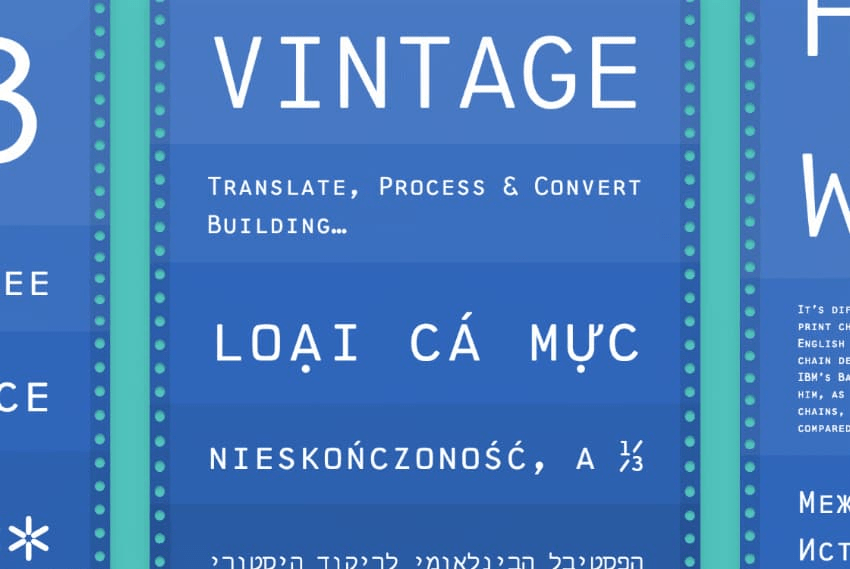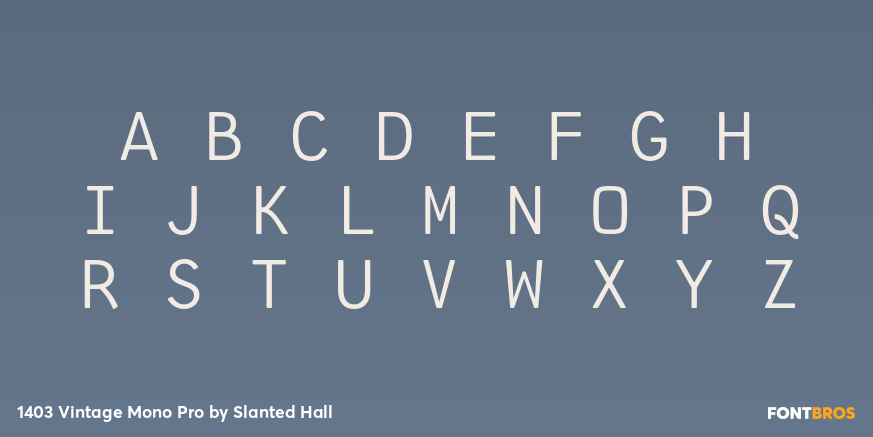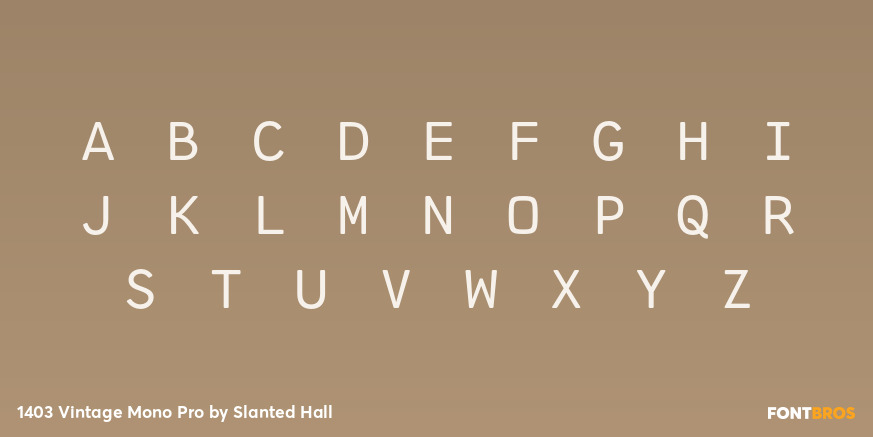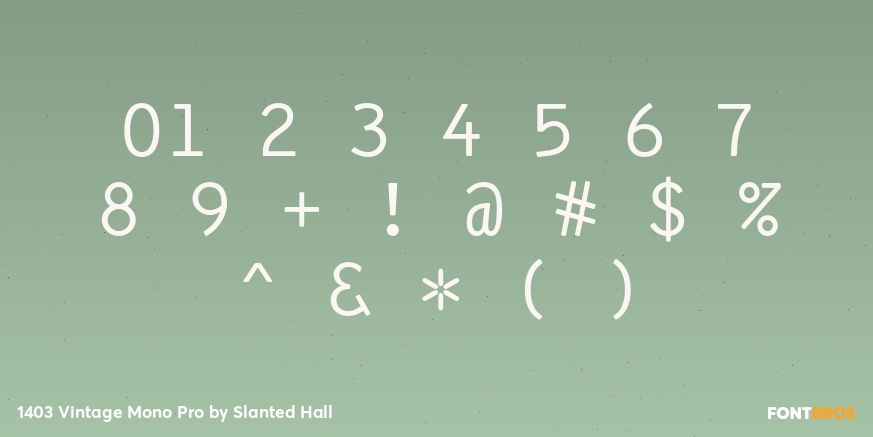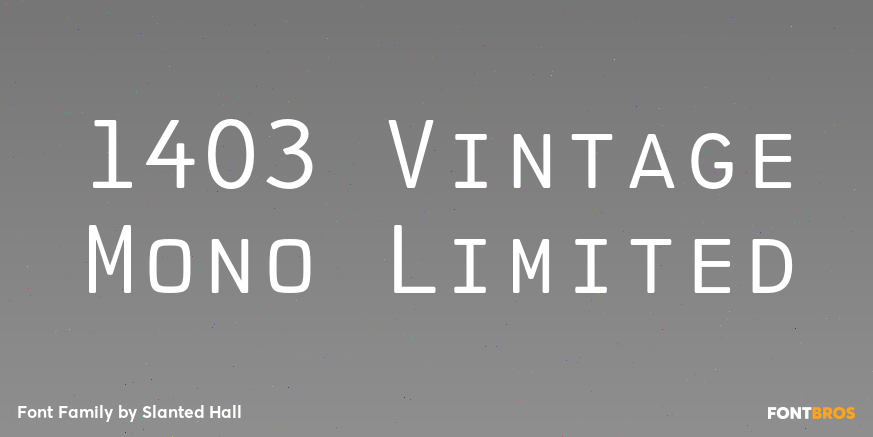
1403 Vintage Mono Pro
Buy NowA practical monospaced typeface, inspired by the IBM 1403 mainframe line printer from the 1960s. Designed by Jeff Kellem.
The idea to create this typeface was sparked by Mark VandeWettering wondering aloud if a font existed reminiscent of that printer. This all uppercase, monospace typeface was quickly expanded from the initial 52 characters making up the A and H print chains to over 1,500 glyphs, supporting most languages that use the Latin alphabet (including Vietnamese), Cyrillic, Greek, and Hebrew. Small capital forms were added to act as lowercase. Continued research, design, and development led to a new release in early 2016 with over 2,300 glyphs supporting 160+ languages, along with refinements throughout.
In addition to small caps, the following OpenType features are included: contextual fractions, including pre-built fractions, and support for arbitrary fractions up to 10 numerators and denominators; superscripts, subscripts, and scientific inferiors; ordinals; dotted zeros for slashed zero; historical variants; and locale variants for Bulgarian, Moldovian, Romanian, Polish, Catalan, Navajo.